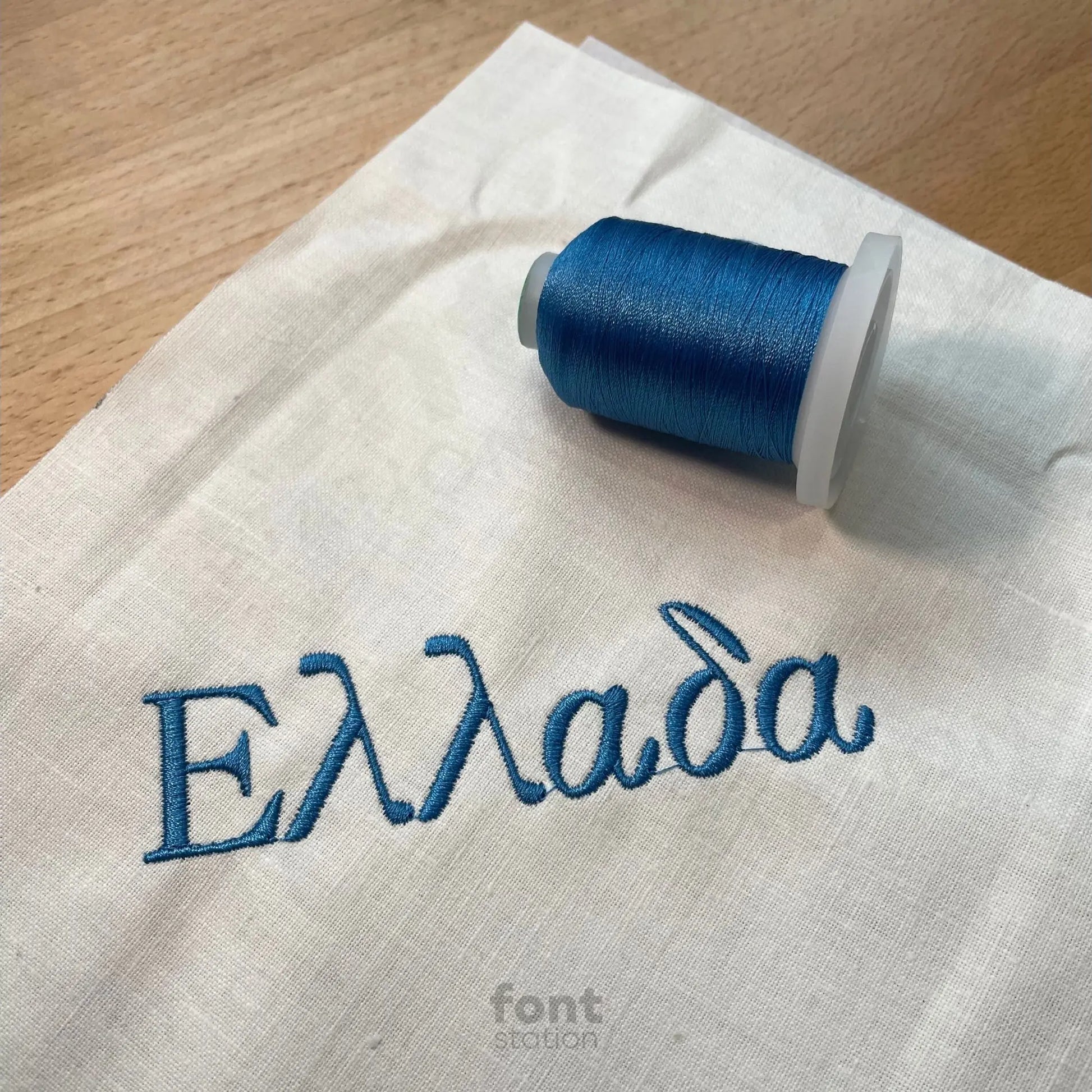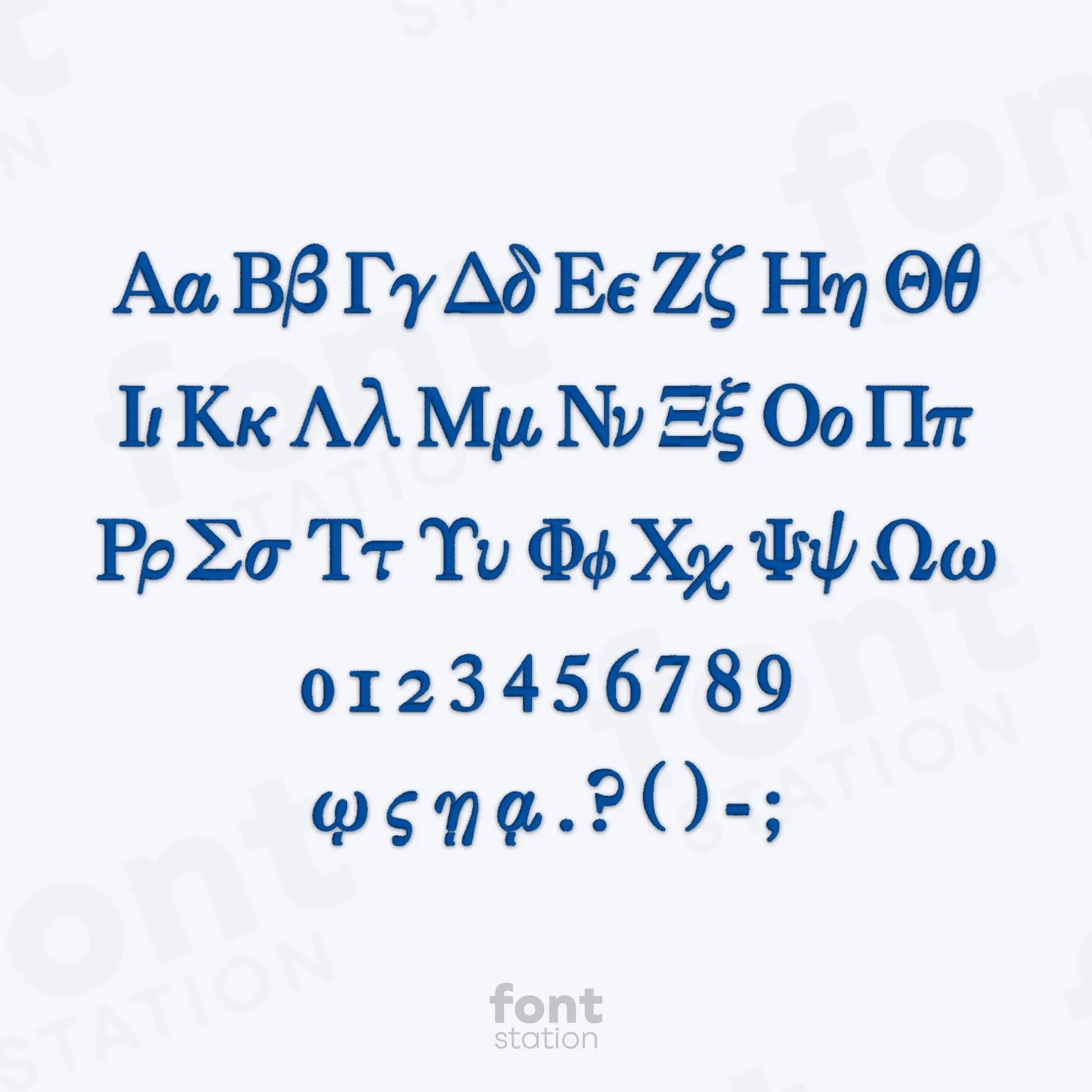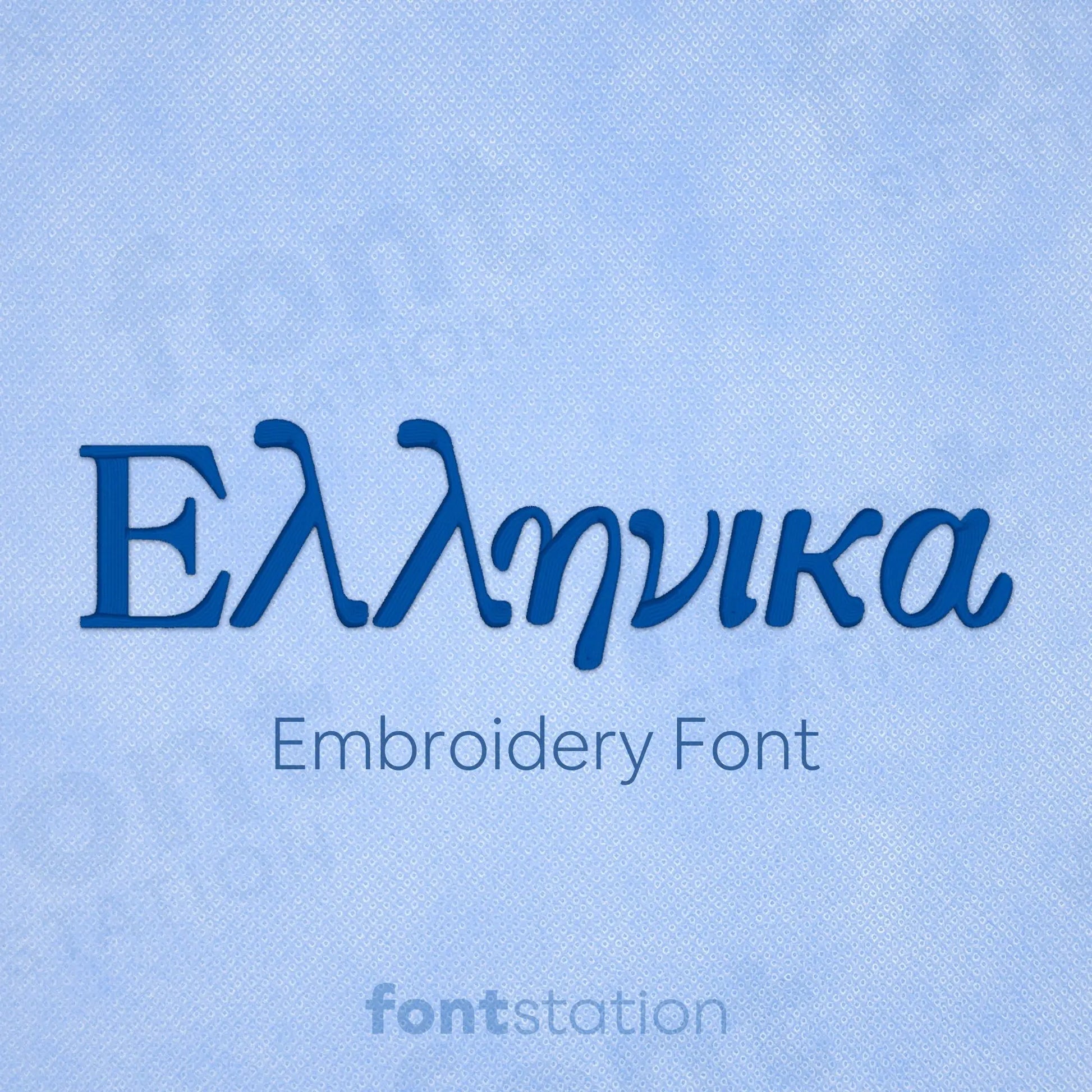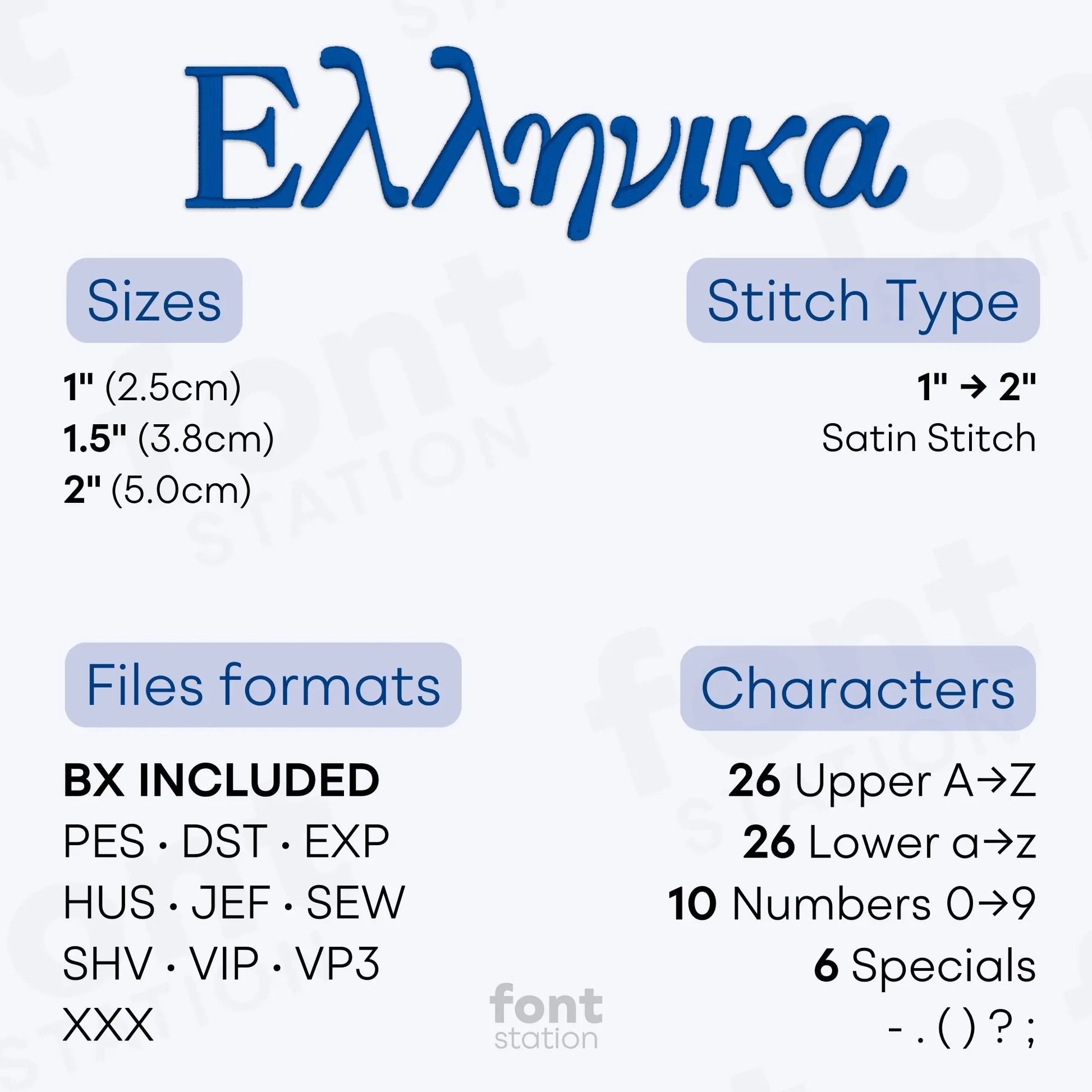
Hellenica Embroidery Font
Introducing our Hellenica embroidery font, a Greek-style serif alphabet perfect to stitch elegant letters and symbols on any embroidery machine. Great for themed designs, monograms, and your next creative project that calls for a classical touch.
About the Hellenica Embroidery Font
Characters: 26 uppercase, 26 lowercase, 10 numbers, and symbols - . ( ) ? ;
Our Hellenica embroidery font brings classic Greek elegance and unique symbols to your embroidery projects.
The Hellenica embroidery font features a beautifully styled Greek-inspired alphabet with clean serif details and matching symbols, perfect for themed designs, educational projects, sorority gifts, or custom monograms. This unique embroidery font includes professional-quality letters and icons, digitized for smooth stitching on any embroidery machine. Formats include BX, PES, DST, JEF, EXP, VP3, HUS, and more for full compatibility and flawless results.